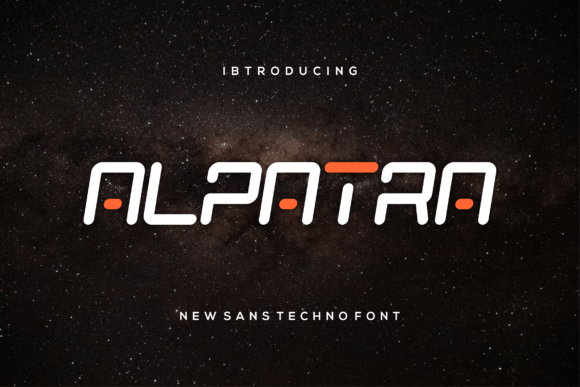
Prepare to be mesmerized by Alpatra, a display font that's more than just a collection of letters. Each character is a stroke of brilliance, meticulously crafted to ignite your creativity and captivate your audience. With its futuristic, mechanical aesthetic, Alpatra exudes an aura of power and innovation that will make your designs stand out from the crowd.
Step into a world where typography becomes art, where every word you write transforms into a masterpiece. Alpatra is not just a font; it's an expression of your unique style, a tool that empowers you to turn your wildest design dreams into reality. Let your imagination soar as you create logos that command attention, headlines that leave a lasting impression, and social media posts that ignite engagement.
With Alpatra, the possibilities are endless. Its versatility knows no bounds, making it the perfect choice for a wide range of projects. From sleek and modern websites to bold and eye-catching posters, Alpatra will elevate your designs to new heights. Embrace the future of typography and let Alpatra ignite the fire within your creative soul.